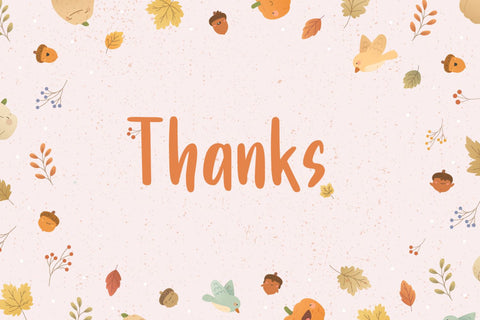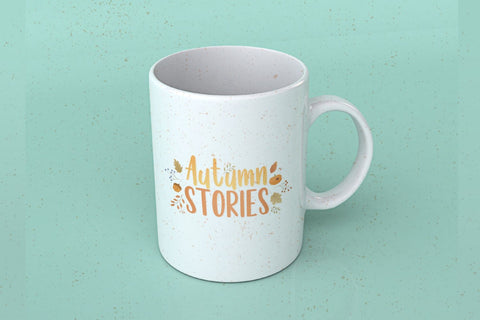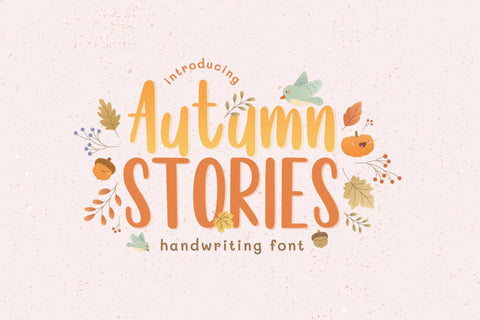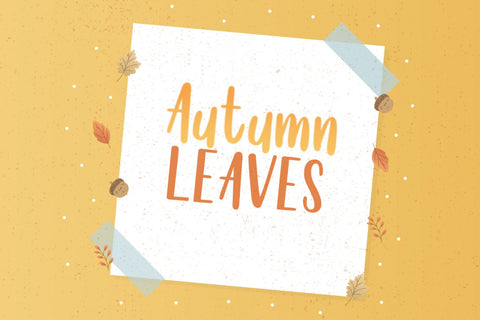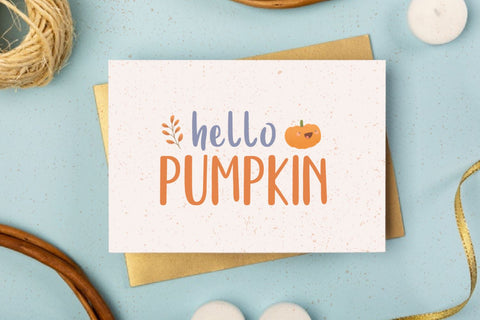
Autumn Stories
Introducing Autumn Stories by Tlatoustype
Autumn Storied is a Modern Handwritten Font.
Autumn Stories is perfect for book cover, product packaging, branding project, megazine, social media, wedding, or just used to express words above the background.